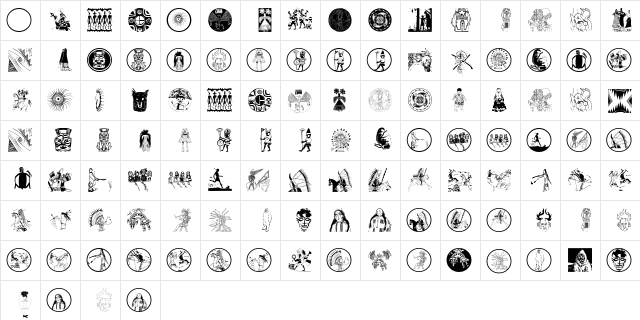
NativeAmericans Regular
Design Context for NativeAmericans Typeface
NativeAmericans is a composed and adaptable typeface that performs quietly and consistently across a wide range of design contexts.